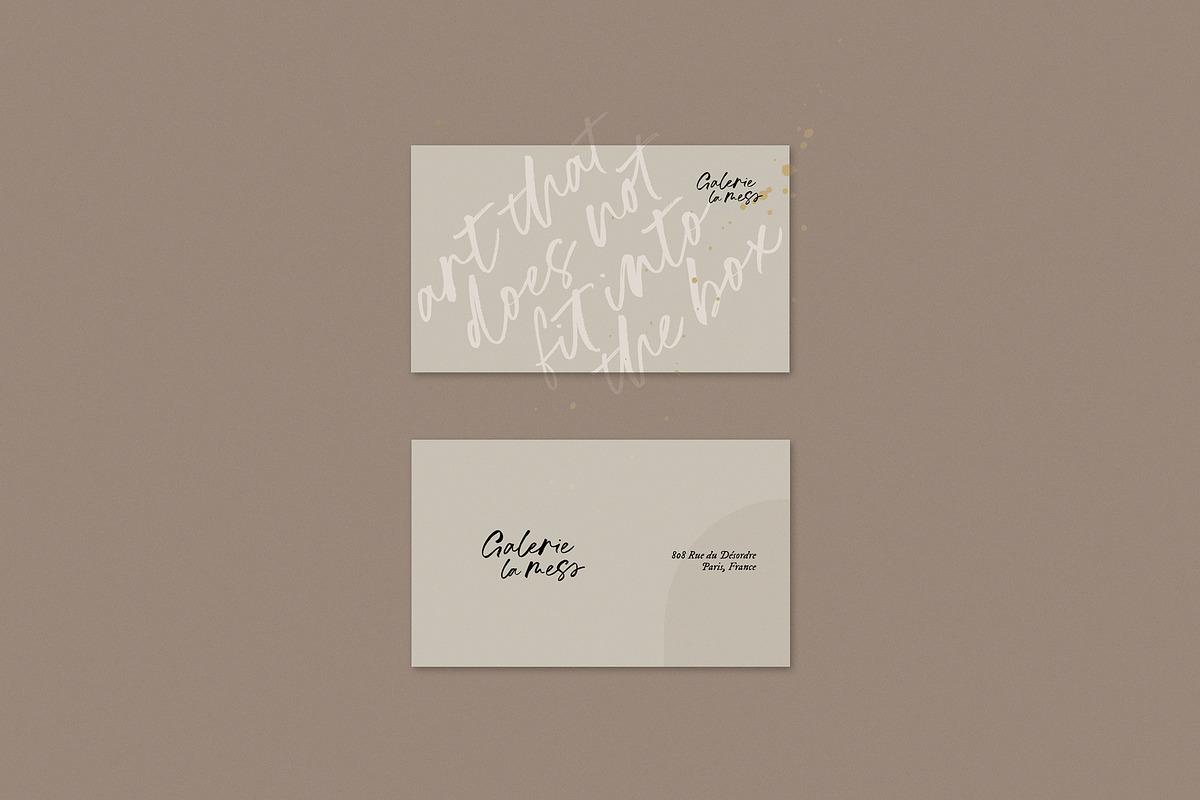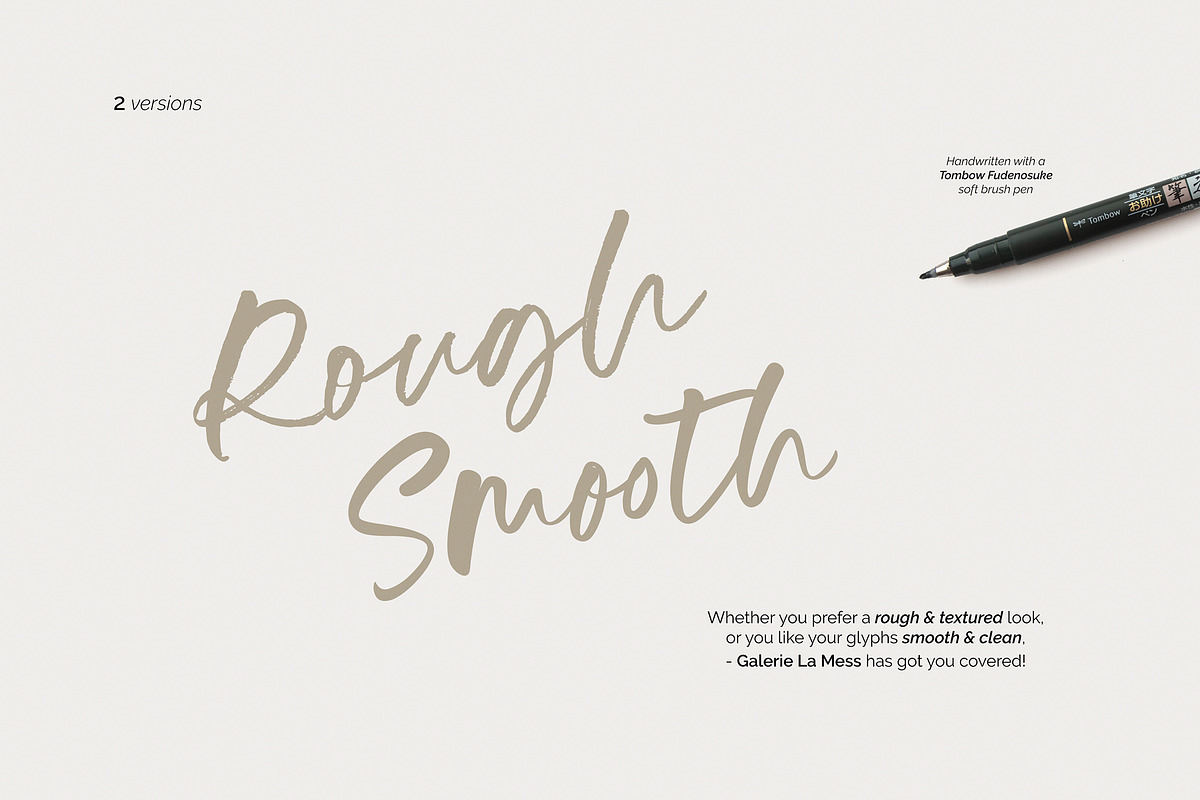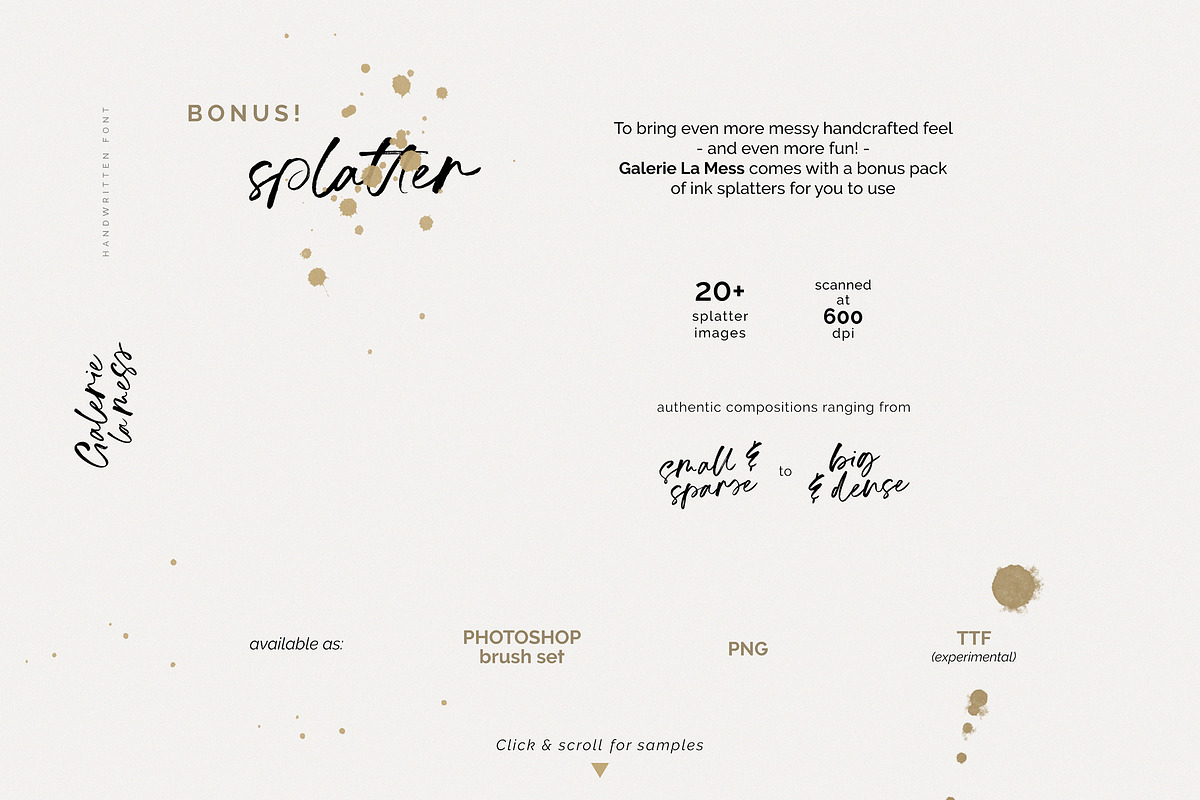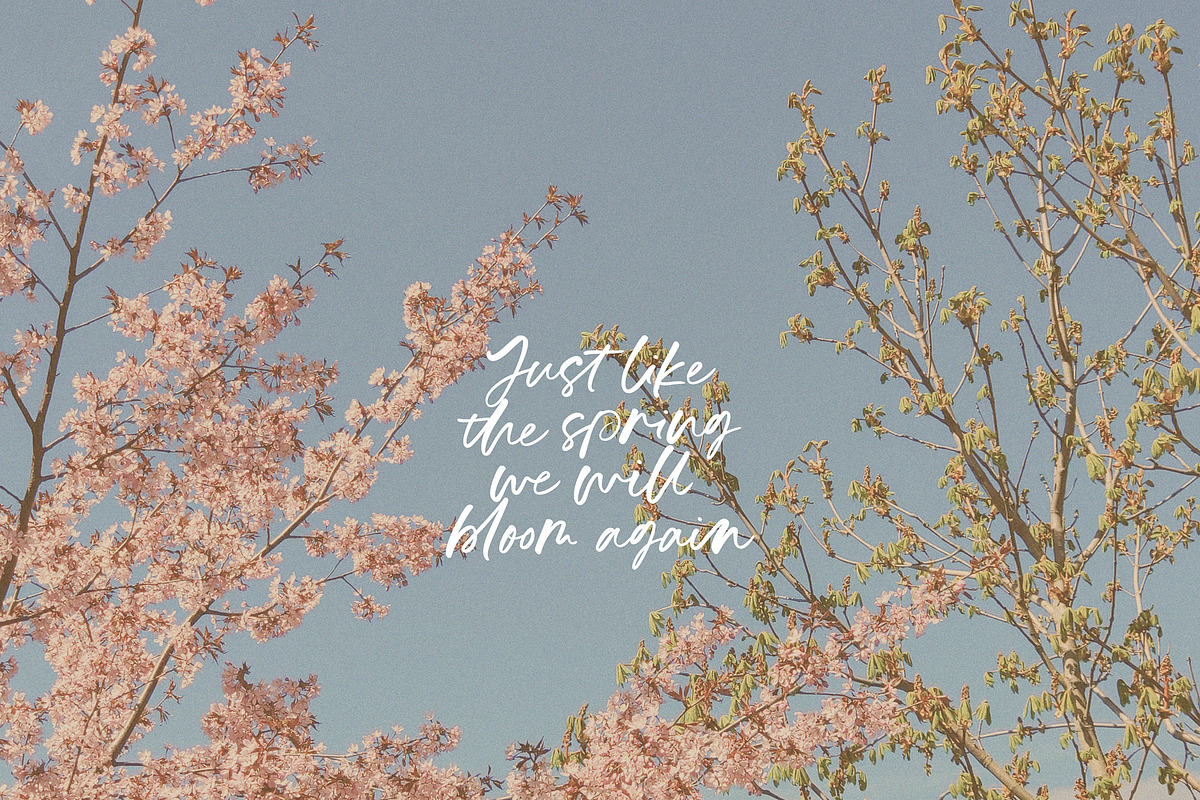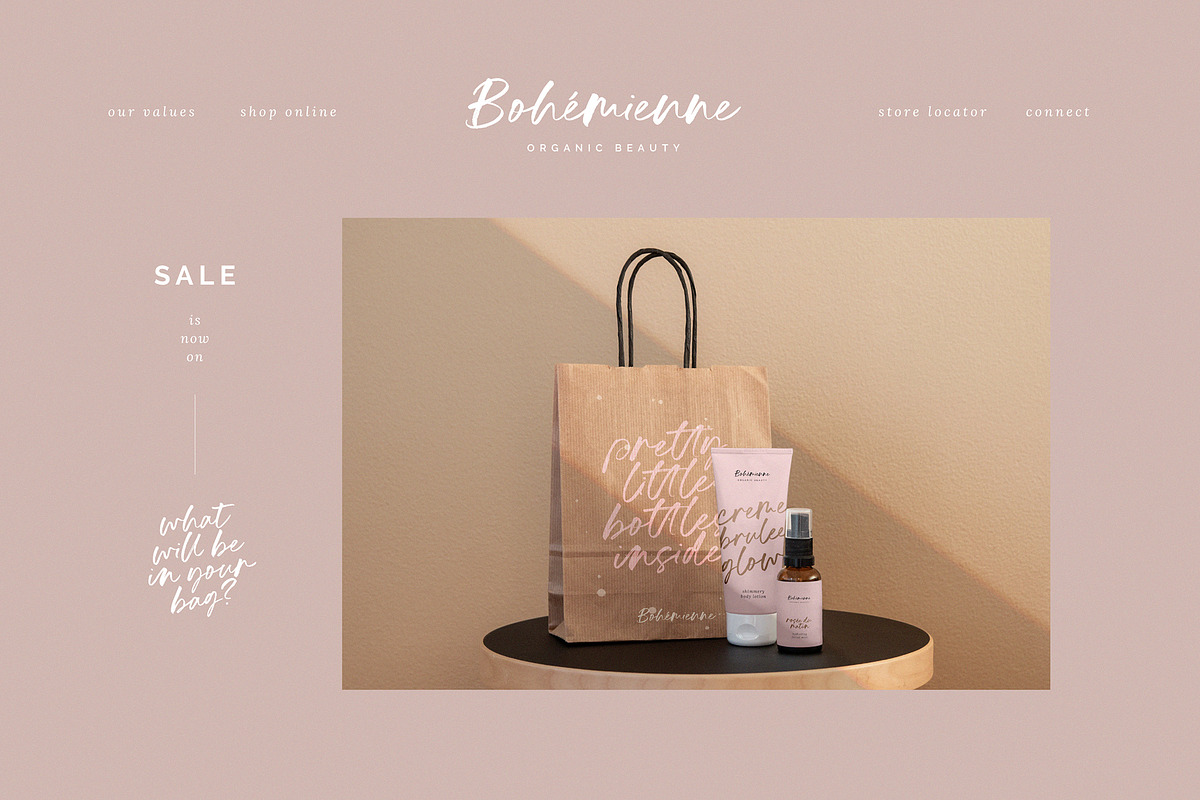
Galerie La Mess is a messy and bold handwritten quotes that transform words of inspiration into beautiful visual pieces. In addition to quotes and prints, Galerie La Mess would be ideal for logos and headings, and wherever big & bold lettering is needed!
For authentic handwritten variation, it comes with a full set of lowercase alternates and 36 ligatures. If you use software that supports OpenType, all of this is included in the main font. If not, you will be able to access the alternates and ligatures with the provided Alt & Liga fonts.
The Regular version of Galerie La Mess has rough edges and slight texture, but for situations that call for clean lines, a Smooth version is also provided.